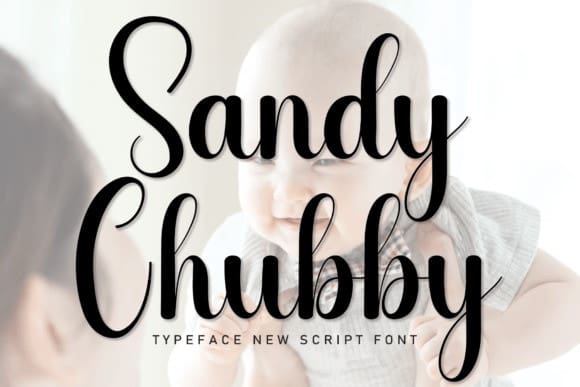
Sandy Chubby Font
Sandy Chubby Font is a sweet and friendly handwritten font. Fresh and neat, this font is ideal for writing wedding invitations, cards, or any other design that might need a fun touch.